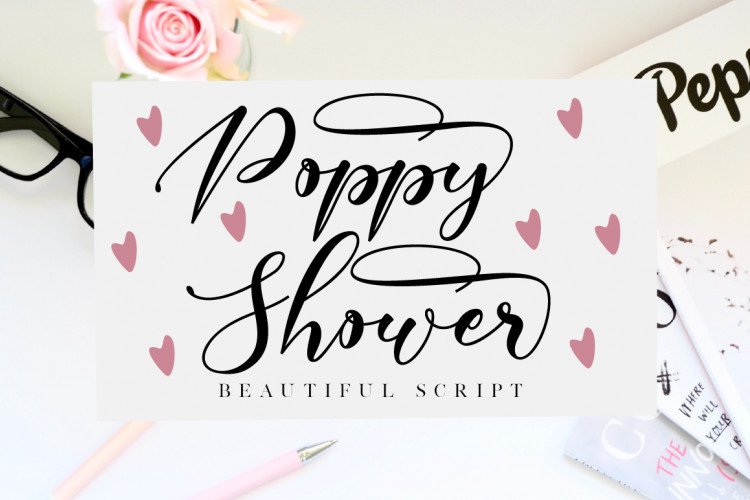
Poppy Shower Calligraphy Font
Hello world..!! This is a new fresh handmade calligraphy font. This font is highly recommended for casual and childhood themed designs, shop logos. Introducing Poppy Shower Calligraphy Font. It is design and shared by Nissa Studio. Poppy Shower is a beautiful script font with a classy, elegant, and modern look! It’s perfect for any design that needs an authentic touch.